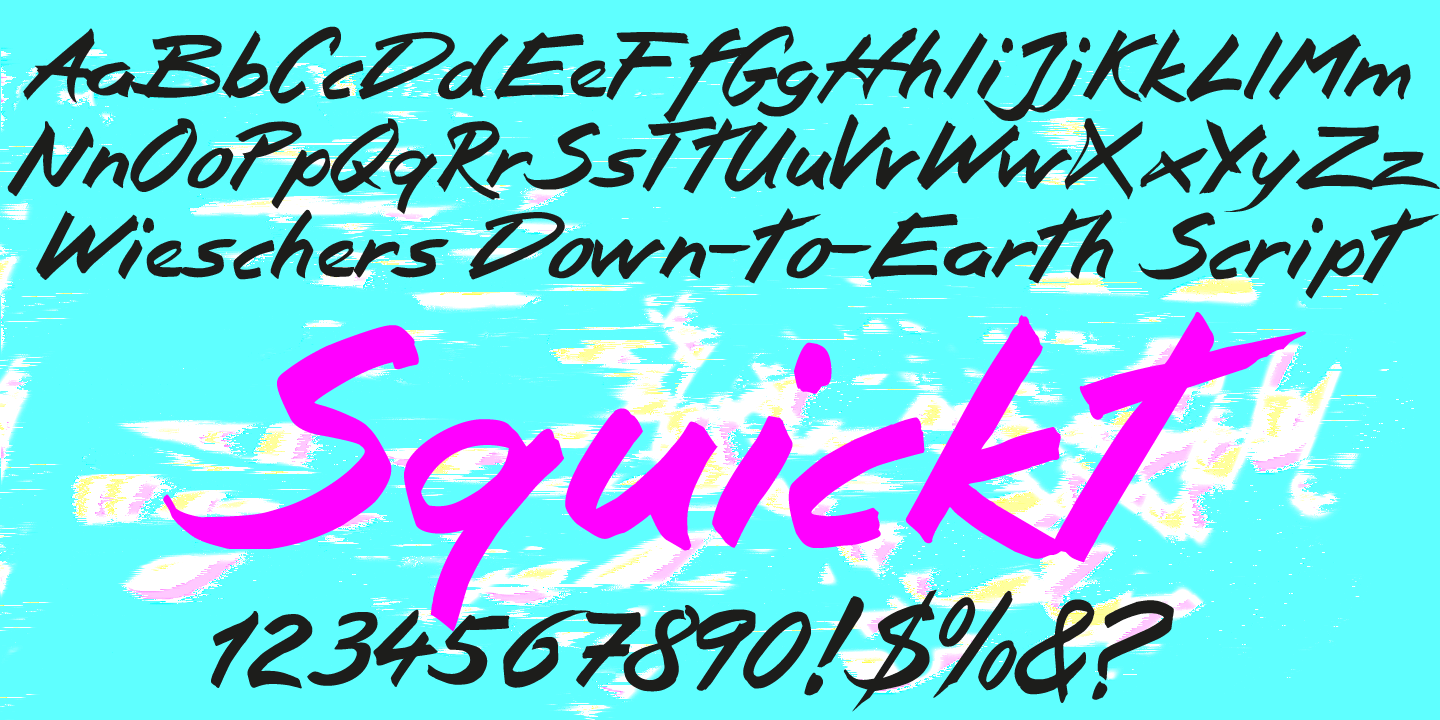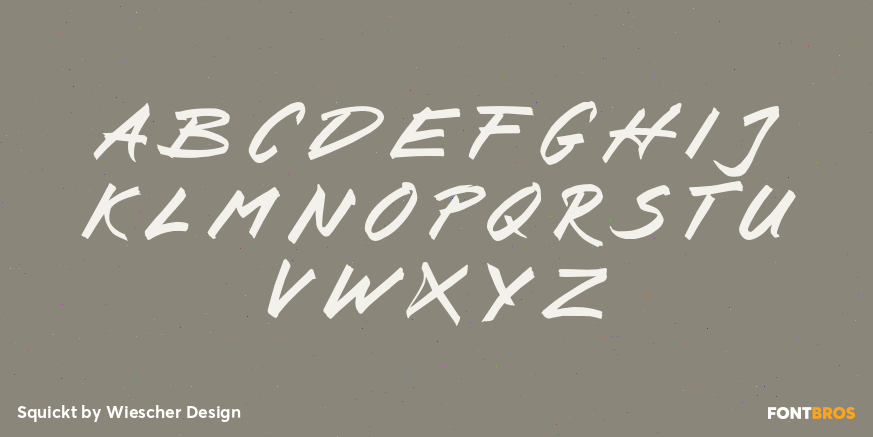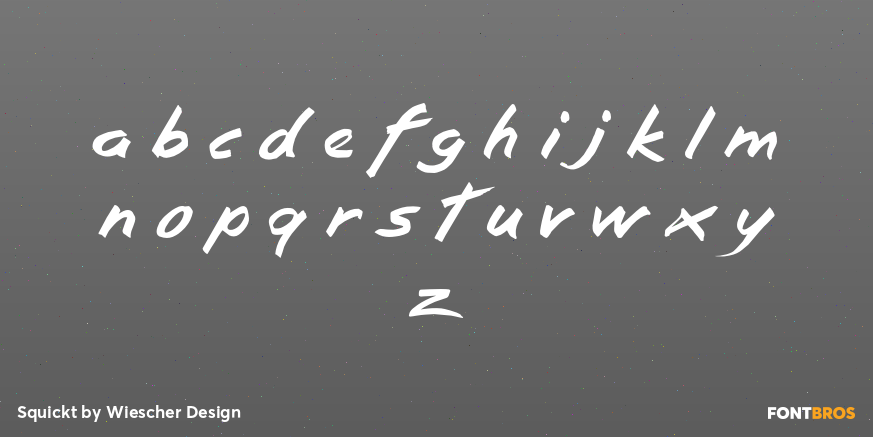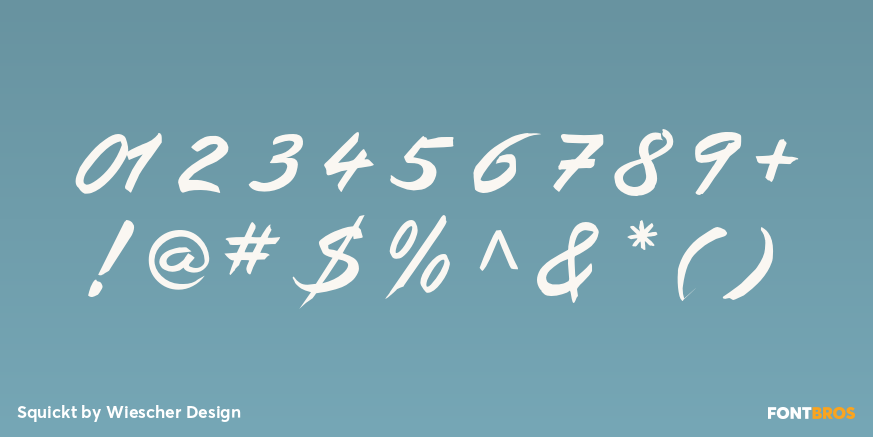
Squickt
Font Family by Wiescher Design
Squickt was the first script I designed. The name is an atrocity, I don't remember what was on my mind, when I decided on that name, but after 25 years it is to late to change, so I have to stick with it.
I have recently gone over the script and changed a little stroke here, a curve there and I added Small-Caps. The font is very useful for all kinds of signs, that have to look spontaneous. You can even condense or extend it without me going berserk; Squickt is very robust.